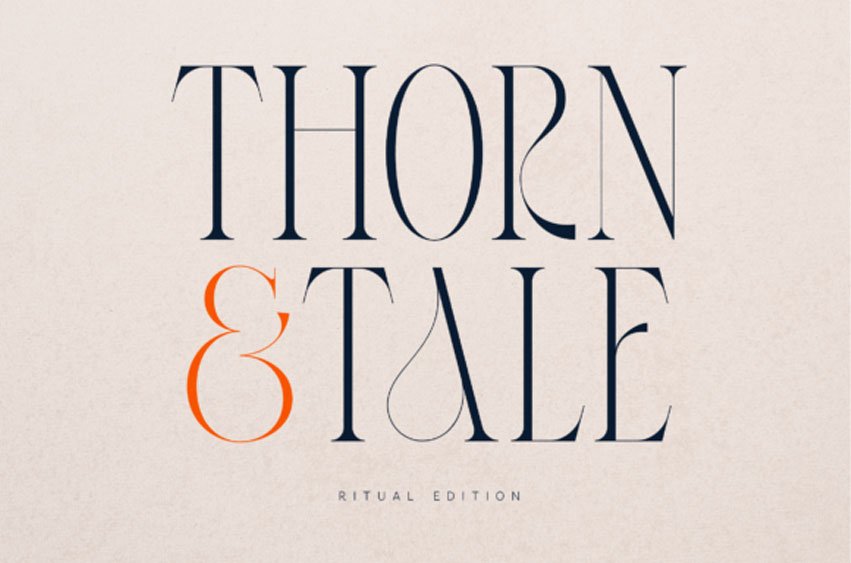
Thorn & Tale Font Ritual Edition is a refined high-contrast serif typeface designed for elevated branding and expressive editorial work.
Built with dramatic vertical stress, sculpted curves, and distinctive teardrop terminals, this typeface balances sharp elegance with organic softness. The subtle calligraphic flow inside the rigid serif structure creates a timeless yet contemporary voice.
Thorn & Tale is perfect for designers working in luxury fashion, beauty branding, boutique packaging, and artistic publications.
It commands attention in headlines while maintaining grace in refined layouts.
Perfect For:
• Luxury branding
• Fashion editorials
• Boutique logos
• Cosmetic packaging
• Wedding design
• Magazine covers
• High-end typography systems
• Premium social media visuals
Carefully spaced and optimized for print and digital applications.
Thorn & Tale blends structure with emotion — elegance with edge.